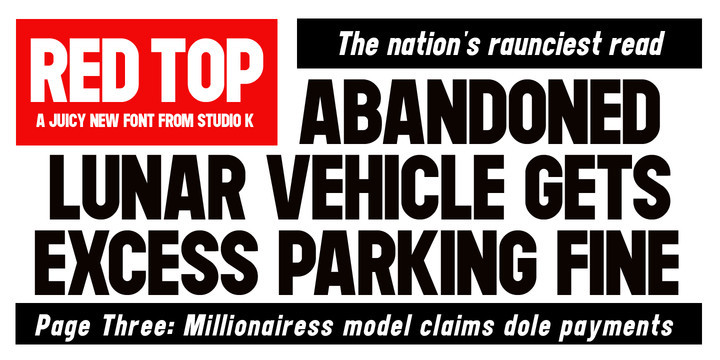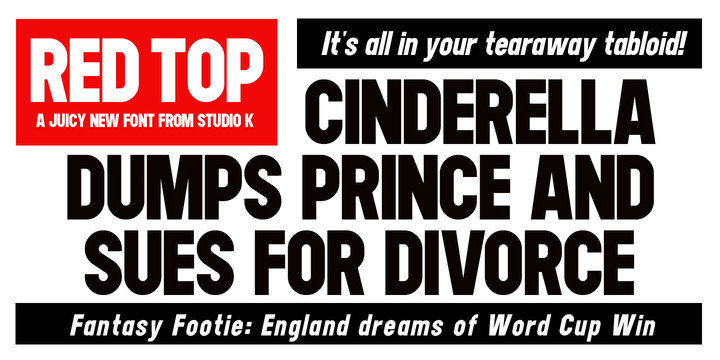
Red Top Font Family
Red Top is the UK name for the tabloid press, the scandal sheets of journalism, scourge of royalty, errant politicians and public figures, and celebrants of sex, celebrity and astrology: all human life is there as they used to say in the now defunct News of the World. For the budding media moguls amongst you – or for designers who want to make their headlines shout a little louder – here at last is Red Top the font. Splash it all over!